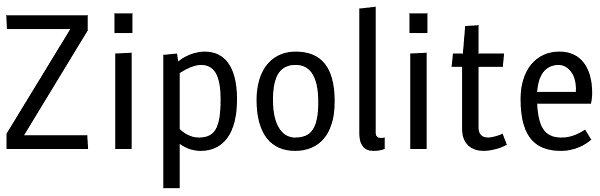
Zipolite
Zipolite is a grotesk typeface with some humanistic details, inspired in the relaxed ambient of an homonymous beach. Its condensed character allows saving space in text setting. Zipolite has seven weights with matching italics. Every style comes...